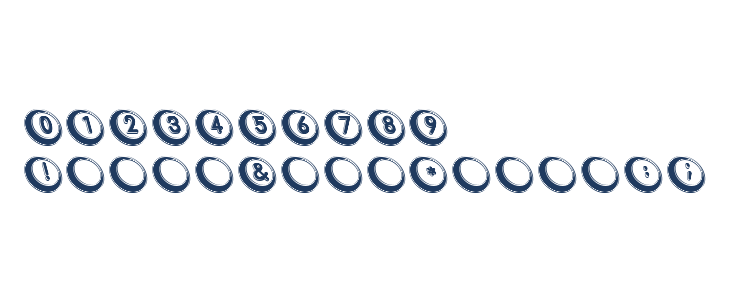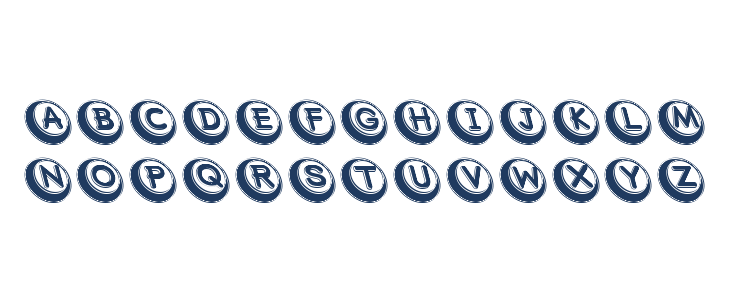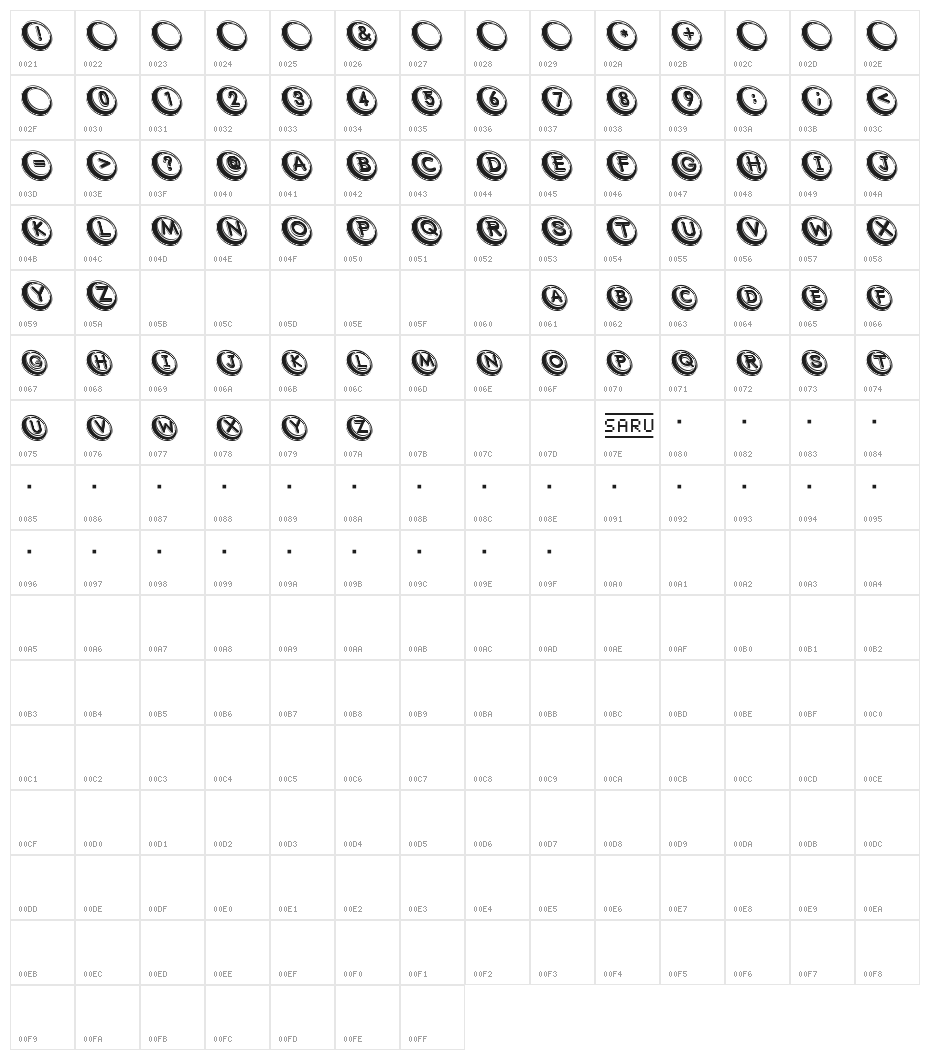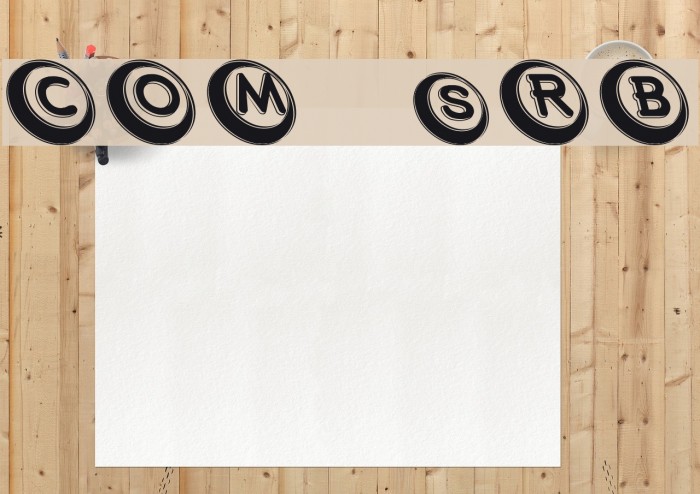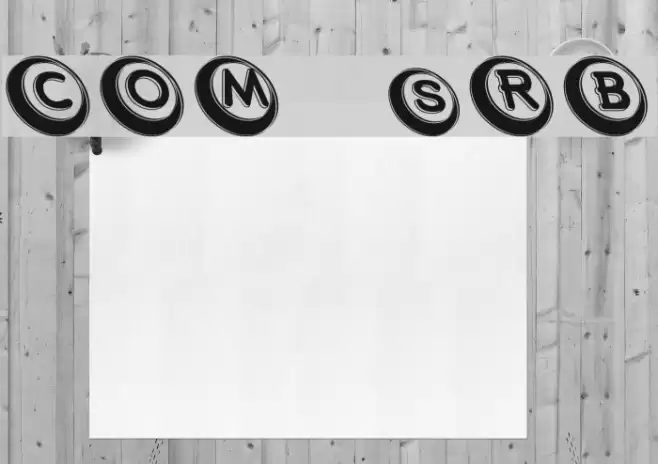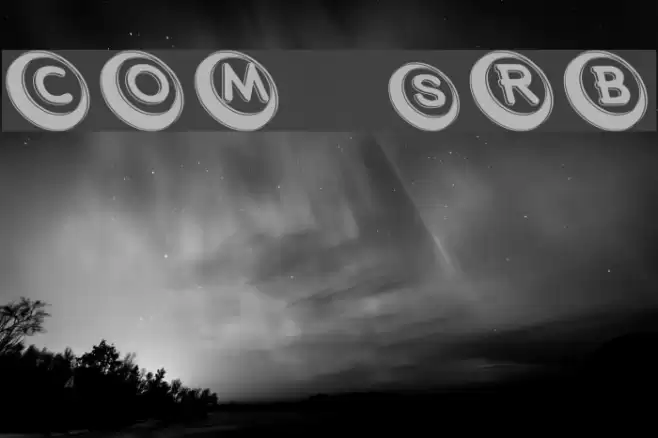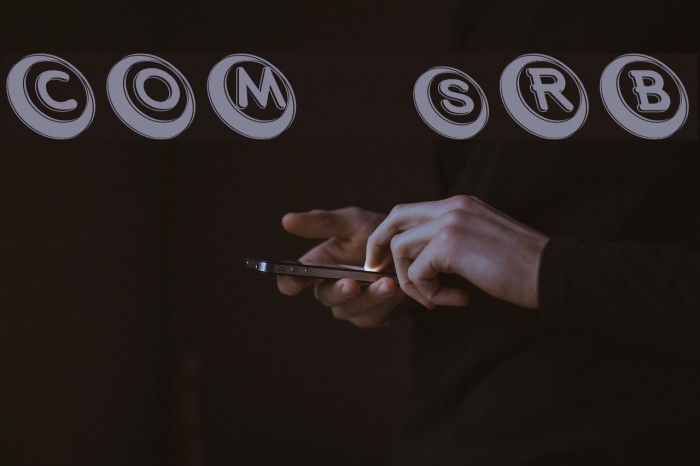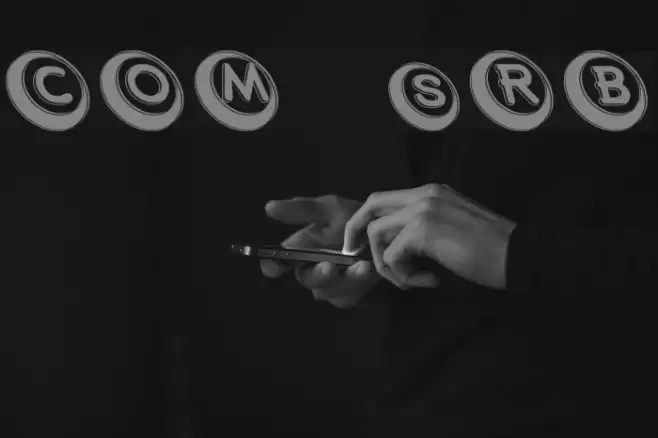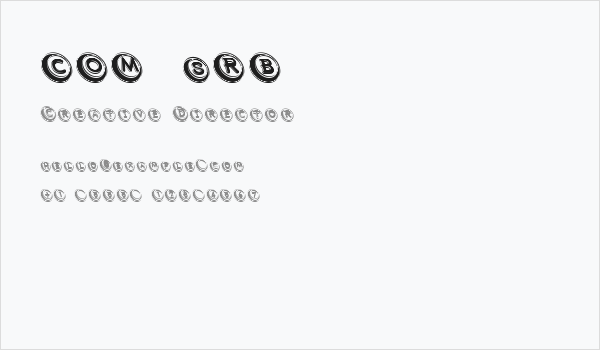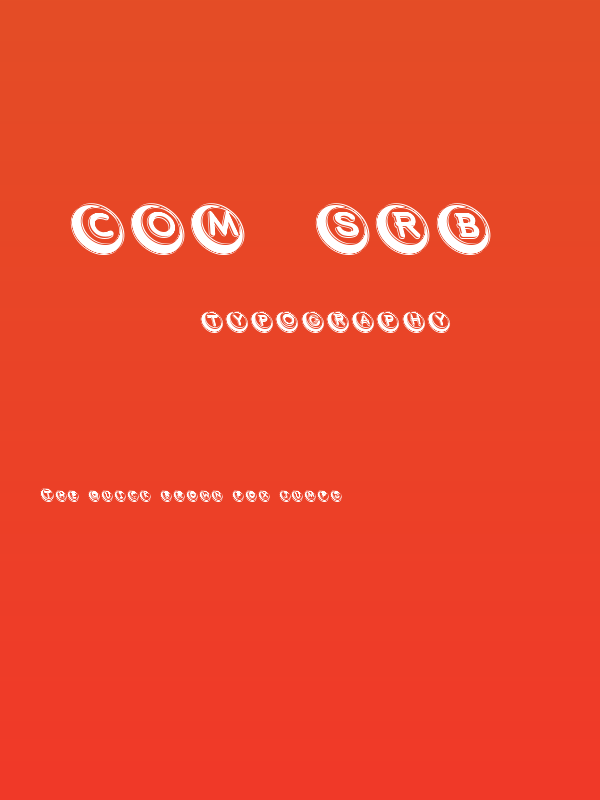
COM [sRB] Font
COM [sRB] Description
This font features a bold, three-dimensional style with each character encased in a circular border, giving it a distinctive, eye-catching appearance. The letters and numbers are uppercase and evenly spaced, with a consistent width and height, creating a uniform look. The bold outlines and shadow effects add depth, making it ideal for designs that require a strong visual impact. The font's playful and dynamic nature makes it suitable for creative projects, while its clear readability ensures it remains functional.
A bold, 3D font with circular borders and shadow effects for a striking appearance from Uncategorized fonts.